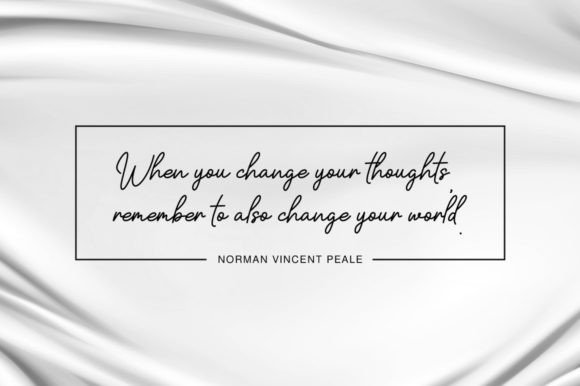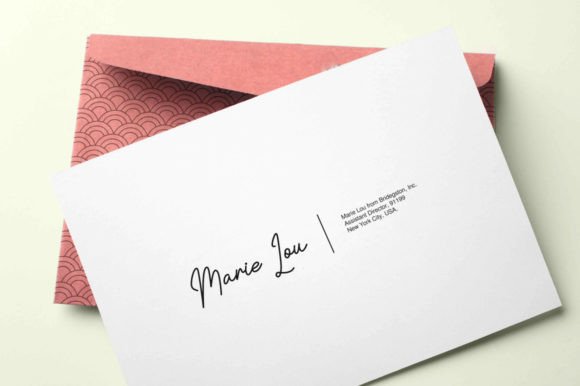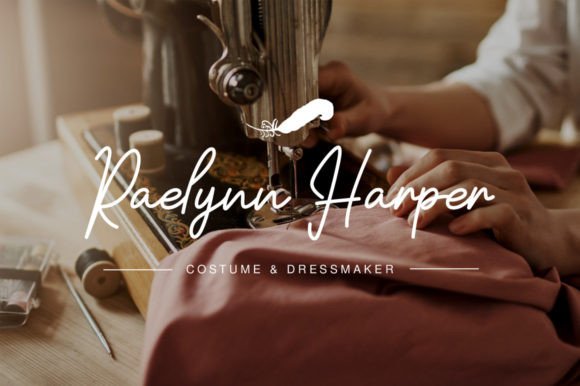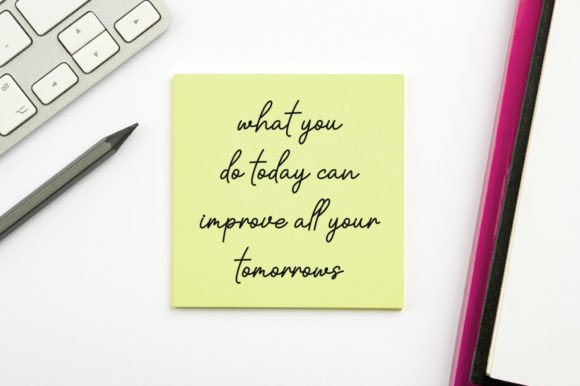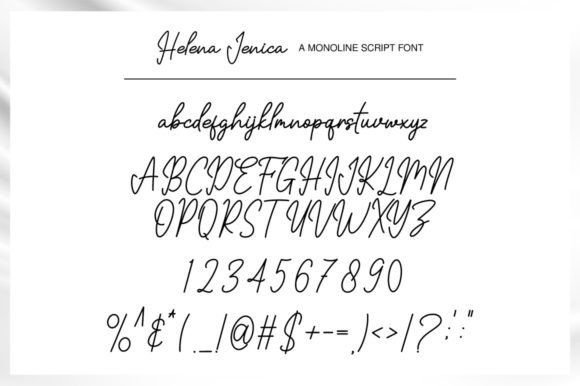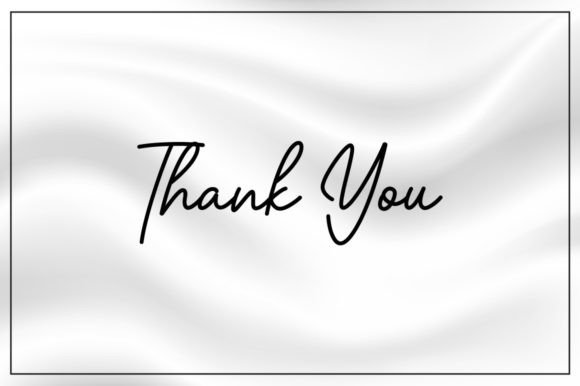
Introduction to Helena Jenika Font
Have you ever stumbled upon a beautiful handwritten font that instantly transports you to a whimsical world of romance and elegance? For me, that moment came when I discovered the enchanting Helena Jenika Font. Its dainty and joyful curves evoke a sense of playfulness, making it the perfect design resource for any creative project.
As designers, we’re always on the lookout for high-quality fonts that can elevate our work and give it a personal touch. The Helena Jenika Font is a gem in this regard, offering a transparent background that allows for seamless integration with any design. Whether you’re crafting wedding invitations, designing greeting cards, or working on a creative project, this font is sure to bring a touch of sophistication and whimsy to your work.
Key Features of Helena Jenika Font
- High-quality design resource for creative projects, ideal for graphic designers and digital artists.
- Unique, modern design with a transparent background, allowing for seamless integration into any project.
- Resolution-independent, ensuring that the font remains crisp and clear at any size or resolution.
- Supports a wide range of languages, making it a versatile choice for designers working on multilingual projects.
Honest Review: Helena Jenika Font
As a designer, I’m always on the lookout for high-quality design resources to elevate my creative projects. Recently, I stumbled upon the Helena Jenika Font, and I’m excited to share my thoughts on it.
What works well about the Helena Jenika Font is its elegant and sophisticated design. It’s perfect for creating a professional and modern look for any project. The font is also highly versatile, making it suitable for a wide range of creative projects, from branding to editorial content.
- ✨ Elegant and sophisticated design
- ✨ Highly versatile, suitable for various creative projects
- ✨ High-quality font with a transparent background, making it easy to use on any design
However, there are a few limitations to keep in mind. The font may not be suitable for projects that require a more playful or casual tone. Additionally, the font’s simplicity may make it prone to overuse, so be sure to use it thoughtfully in your designs.
Overall, I’m impressed with the Helena Jenika Font and would definitely recommend it to fellow designers. Its high-quality design and versatility make it an excellent addition to any creative project.
Tips for Getting the Most Out of Helena Jenika Font
To get the most out of Helena Jenika Font, use it with a transparent background to create a clean and modern design. You can also experiment with different font sizes and styles to create a unique look.
Helena Jenika Font is ideal for a variety of creative projects, including:
Blogs and websites
Business cards and brochures
Social media graphics